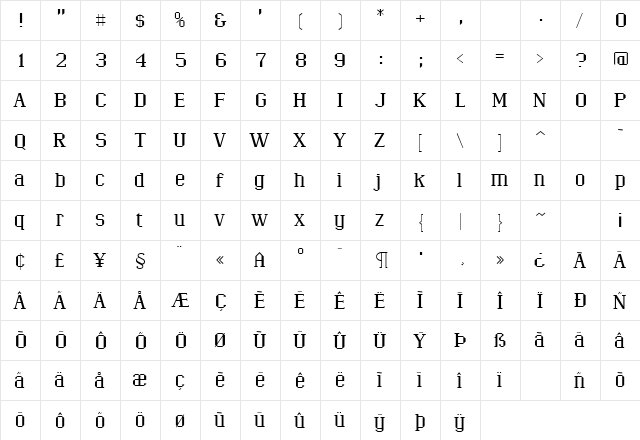
RangerWider Regular
Design Context for RangerWider Typeface
RangerWider takes a measured approach to typography — its balanced proportions and neutral character make it a reliable workhorse for both digital and print work.